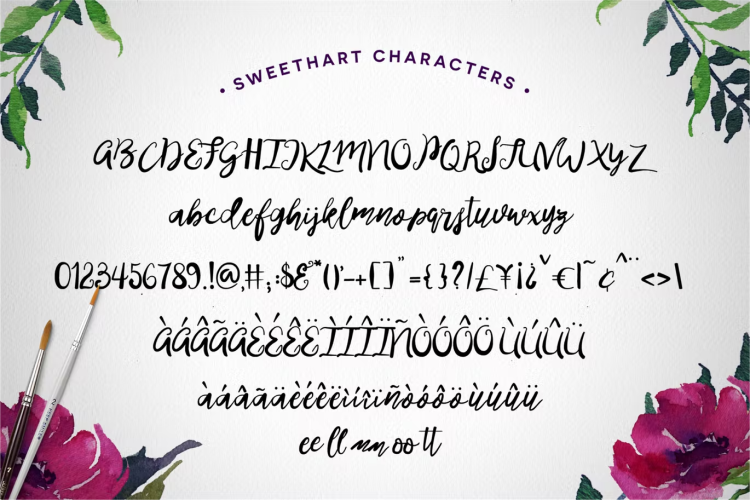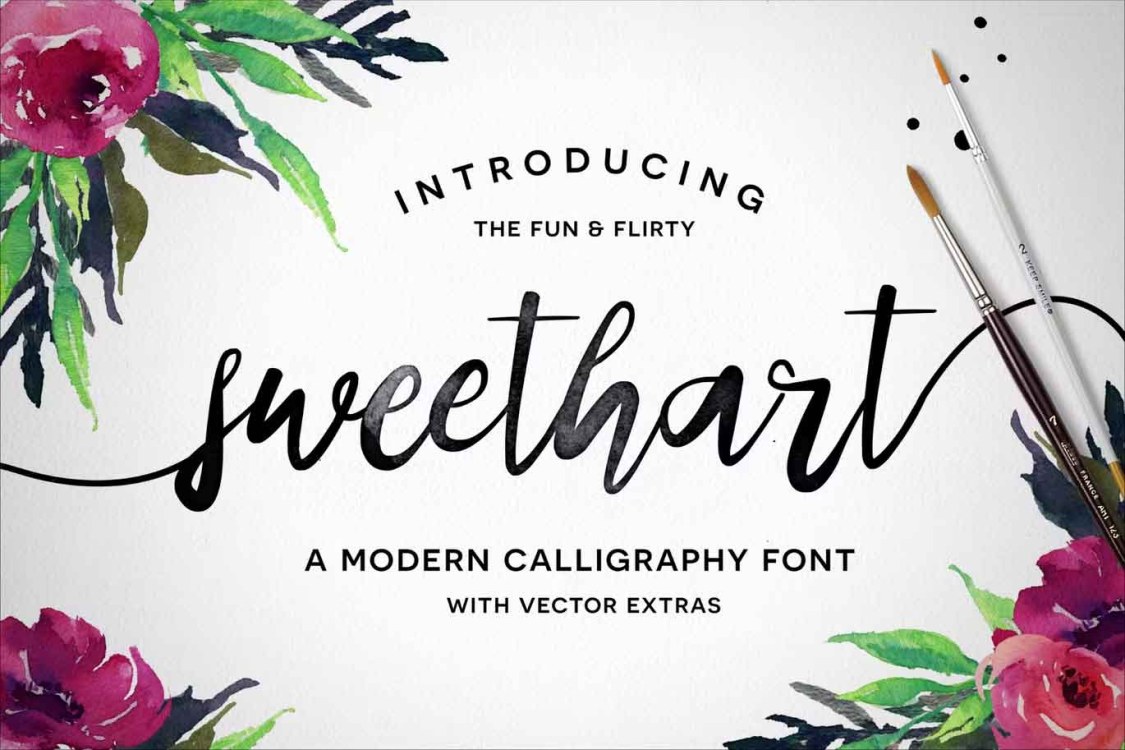
Sweethart Font
ABOUT SWEETHART
Sweethart is a fun & flirty script font with some rad bonuses! It’s fat-to-thin brush strokes and imperfect baseline give it a fun and stylish aesthetic perfect for typography, branding, logo design, invitations, and prints.
Use it in ink, watercolor, or gold foil based designs or on its own as a bold hand-painted masterpiece!
THE EXTRAS
• 14 End Ornaments & Ligatures
Sweethart Font brings a personal, handwritten warmth to invitations, menus and place cards.
Craft brands — coffee, cosmetics, bakery — use scripts like Sweethart Font for signature-style logos and labels.
Pair Sweethart Font with a plain sans for quotes, stories and Pinterest pins that feel handmade.